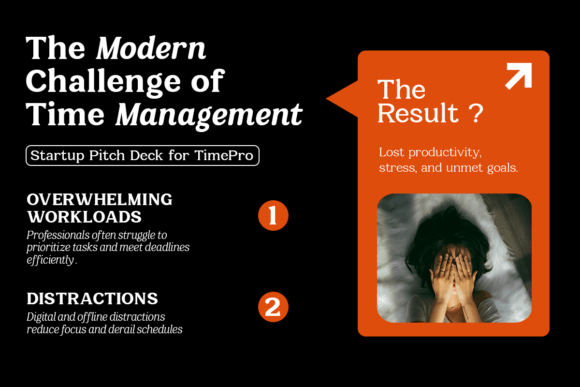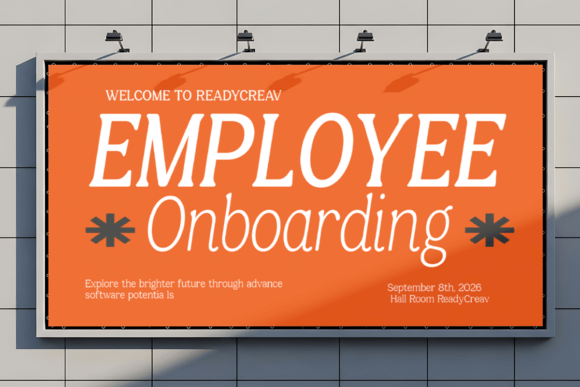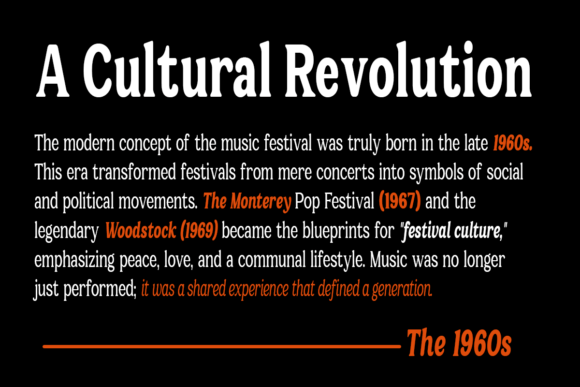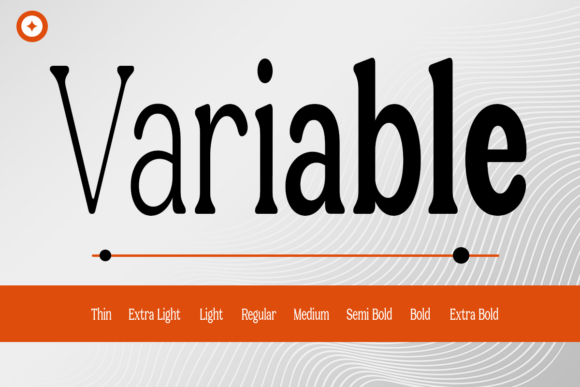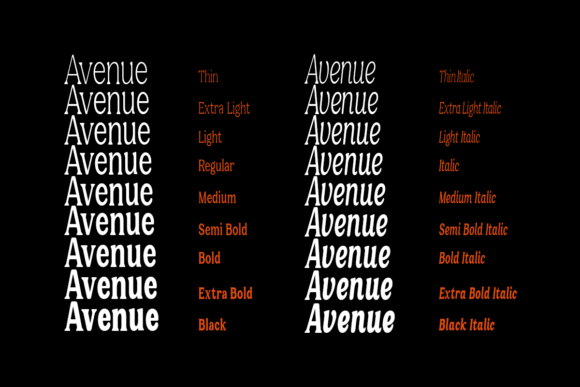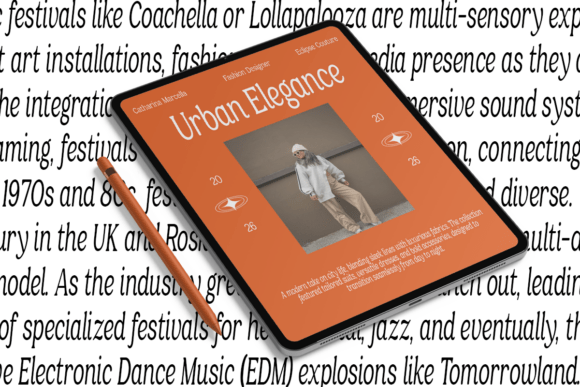
Introducing Castle of Avenue: The Ultimate Serif Font for Elegant Design
In the world of typography, a well-crafted font can elevate a design from ordinary to extraordinary. For designers and crafters seeking to infuse their projects with elegance, versatility, and timeless sophistication, look no further than Castle of Avenue. This refined serif family font is specifically designed to meet the demands of modern design, offering a perfect blend of style, flexibility, and professionalism.
The Essence of Castle of Avenue
Castle of Avenue is more than just a font – it’s a comprehensive typography system that adapts effortlessly across various creative needs. Whether you’re working on branding, editorial design, luxury packaging, fashion magazines, logos, or high-end visual identities, this font family provides the perfect solution. With its range of delicate italic styles to bold and powerful weights, Castle of Avenue empowers designers to build cohesive and dynamic typography systems with ease.
Elegance and Versatility
One of the standout features of Castle of Avenue is its remarkable versatility. This font family is designed to excel in a wide range of applications, from elegant publications and premium brand identities to stylish marketing visuals. The font’s refined serif design ensures a polished and professional look that’s perfect for high-end projects. Whether you’re aiming to create a sophisticated brand image or craft a visually stunning editorial spread, Castle of Avenue delivers.
Key Features of Castle of Avenue
- Refined Serif Design: Castle of Avenue boasts a classic serif design with a modern twist, ensuring a timeless and sophisticated look.
- Wide Range of Weights: From delicate italic styles to bold and powerful weights, this font family offers the flexibility to create dynamic typography systems.
- Elegant and Versatile: Perfect for branding, editorial design, luxury packaging, fashion magazines, logos, and high-end visual identities.
- Cohesive Typography Systems: Easily build cohesive and dynamic typography systems with the range of styles and weights available.
Applications of Castle of Avenue
Castle of Avenue is an incredibly versatile font family that can be applied to a wide range of design projects. Here are some of the ideal applications for this elegant serif font:
- Branding: Create a premium brand identity with a polished and professional look.
- Editorial Design: Design elegant publications, such as fashion magazines and luxury lifestyle journals.
- Luxury Packaging: Elevate your packaging design with a sophisticated and high-end typography system.
- Logos: Craft stunning logos that exude elegance and refinement.
- High-End Visual Identities: Develop a cohesive visual identity that reflects your brand’s values and personality.
Why Choose Castle of Avenue?
With so many fonts available, why choose Castle of Avenue? Here are just a few reasons why this font family stands out:
- Timeless Sophistication: Castle of Avenue’s classic serif design ensures a timeless and sophisticated look that never goes out of style.
- Flexibility: With a range of styles and weights, this font family adapts effortlessly to various creative needs.
- Professionalism: Deliver a polished and professional look that’s perfect for high-end projects.
In conclusion, Castle of Avenue is a refined serif family font that brings elegance, versatility, and timeless sophistication to modern design. With its wide range of styles and weights, this font family adapts effortlessly across various creative needs, making it perfect for designers and crafters seeking to elevate their projects. Whether you’re working on branding, editorial design, luxury packaging, or high-end visual identities, Castle of Avenue delivers a polished and professional look that’s sure to impress.